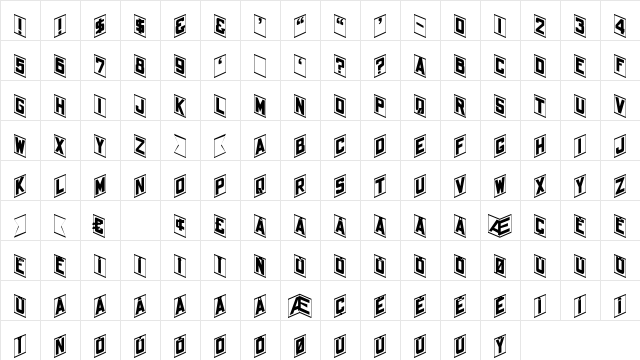
Bajazzo Regular
Design Context for Bajazzo Typeface
Bajazzo is a composed and adaptable typeface that performs quietly and consistently across a wide range of design contexts.